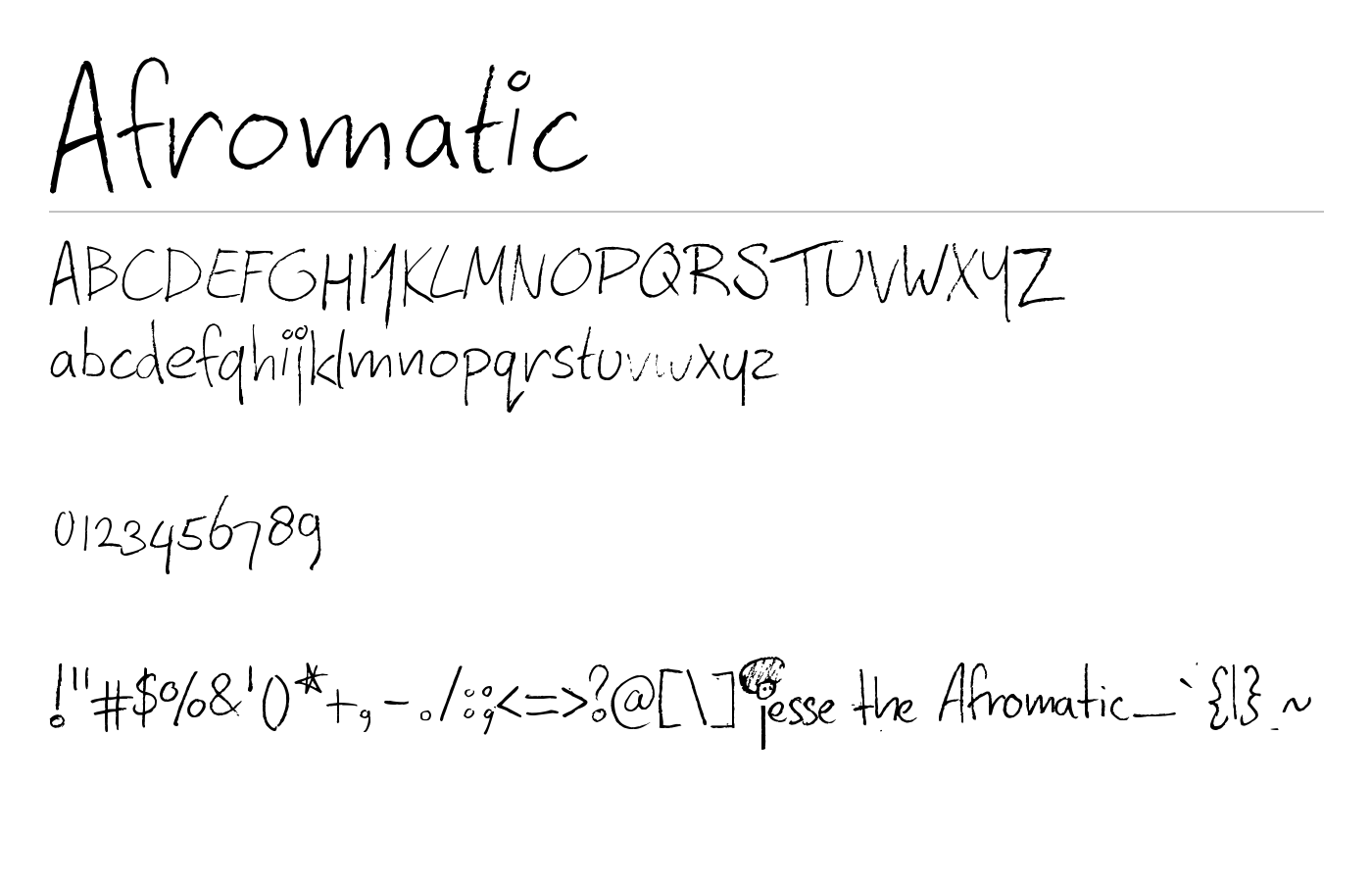
Afromatic is a casual, hand-drawn sans serif font that brings a playful and organic feel to any design. Its irregular strokes and narrow letterforms give it a quirky, personal touch, making it perfect for creative projects, informal branding, or artistic headlines that want to convey warmth and individuality. This font works well where a friendly, approachable style is needed, such as in greeting cards, posters, or unique logo designs.
Afromatic Font